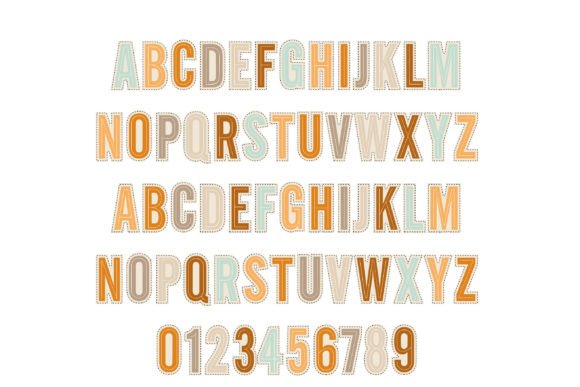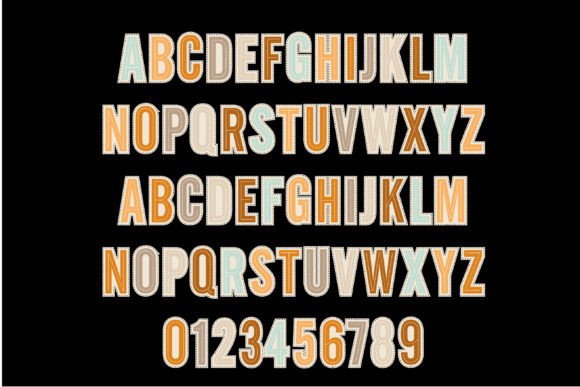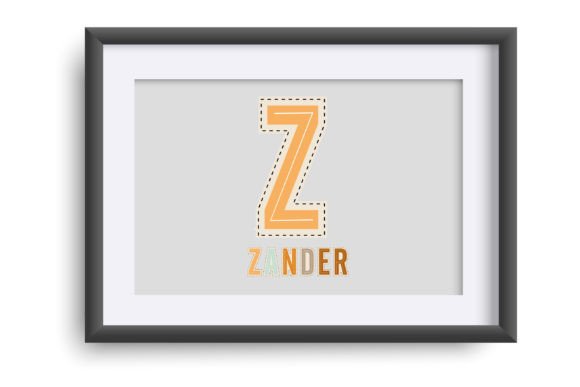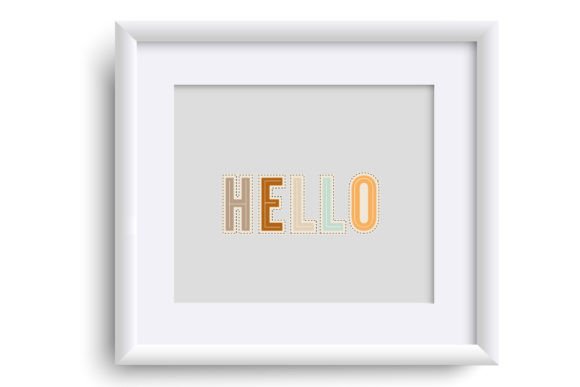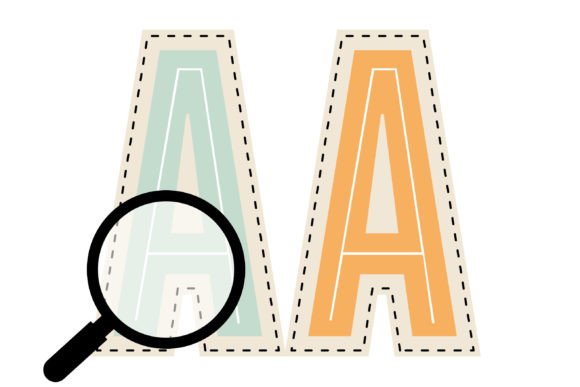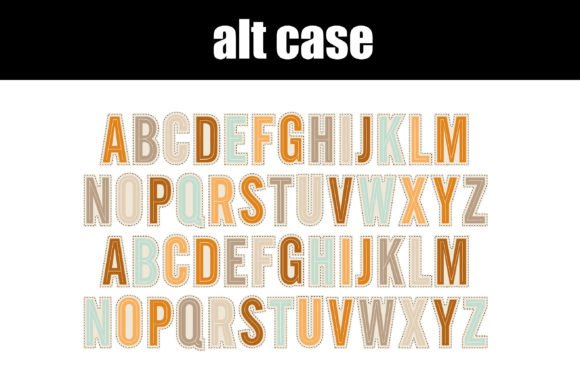
Introducing Grateful Notes Font: Elevate Your Designs with a Thanksgiving Twist
Are you looking for a unique and vibrant font to add a touch of Thanksgiving spirit to your designs? Look no further than Grateful Notes Font, a full-color font that combines a heavy sans serif style with a festive Thanksgiving color palette. In this article, we’ll dive into the features and benefits of Grateful Notes Font, and explore how you can use it to take your crafty ideas to the next level.
What is Grateful Notes Font?
Grateful Notes Font is a specially designed font that features a bold, sans serif style in a range of Thanksgiving-inspired colors. The font comes with an alt case option for each letter, presented in a different color, allowing you to add an extra layer of creativity to your designs. Whether you’re working on a Thanksgiving-themed project or simply want to add a pop of color to your artwork, Grateful Notes Font is the perfect choice.
Key Features of Grateful Notes Font
- Full-color font: Grateful Notes Font is a color font, which means you can use it to create stunning, multi-colored designs with ease.
- Heavy sans serif style: The font features a bold, sans serif style that’s perfect for making a statement.
- Thanksgiving color palette: The font comes in a range of colors inspired by the Thanksgiving season, including warm oranges, yellows, and reds.
- Alt case option: Each letter has an alt case option in a different color, giving you even more creative freedom.
- Experiment with colors and styles: Use the alt case option and color palette to add depth and interest to your designs.
Tips for Getting the Most Out of Grateful Notes Font
Here are a few tips for getting the most out of Grateful Notes Font:
- Experiment with different colors: Don’t be afraid to try out different color combinations to find the perfect look for your design.
- Use with other Thanksgiving-themed elements: Pair Grateful Notes Font with other Thanksgiving-themed elements, such as graphics or images, to create a cohesive look.
- Try it with different design styles: Grateful Notes Font works well with a range of design styles, from modern and bold to more traditional and elegant.
Grateful Notes Font is a unique and versatile font that’s perfect for designers and crafters looking to add a touch of Thanksgiving spirit to their work. With its bold, sans serif style and range of Thanksgiving-inspired colors, this font is sure to make a statement. Whether you’re working on a Thanksgiving-themed project or simply want to add some extra creativity to your designs, Grateful Notes Font is a great choice. So why wait? Download Grateful Notes Font today and start creating stunning, one-of-a-kind designs!